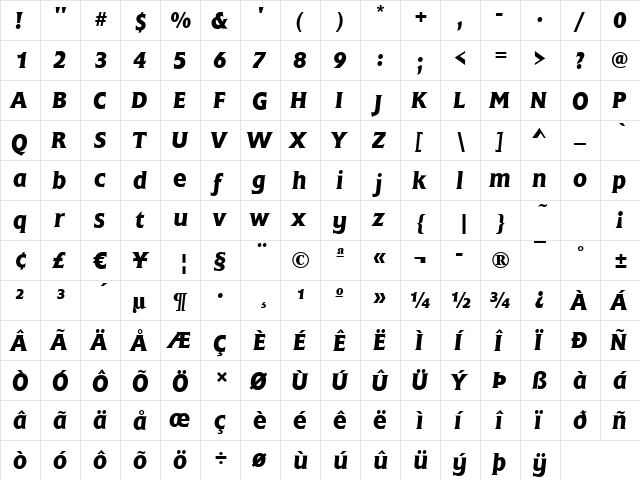
Frascati-Medium Italic
Design Context for Frascati-Medium Typeface
Frascati-Medium is a composed and adaptable typeface that performs quietly and consistently across a wide range of design contexts. The slanted form adds forward momentum and visual energy.
Pro Tip: Use Frascati-Medium for emphasis, pull quotes, and subheadings where its slanted energy can add rhythm to the layout.